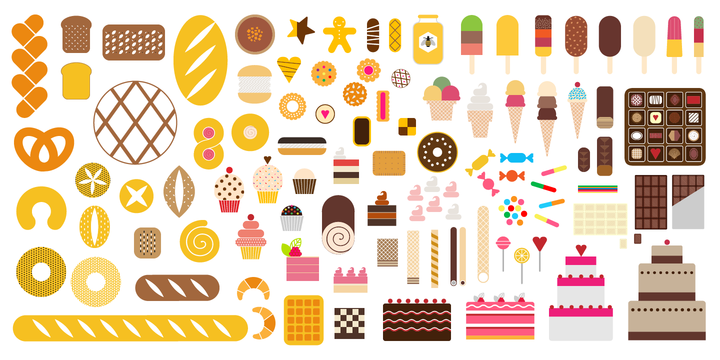
Bread And Confectionery
by Baobaby Studio
This is a modern icon set with geometric shapes. A tasty set for the creation of the visual identity of shops, restaurants or bars.
Thanks to its simplicity it will be perfect for printed and online materials.